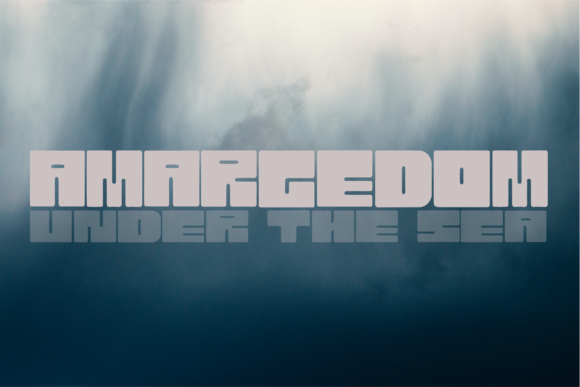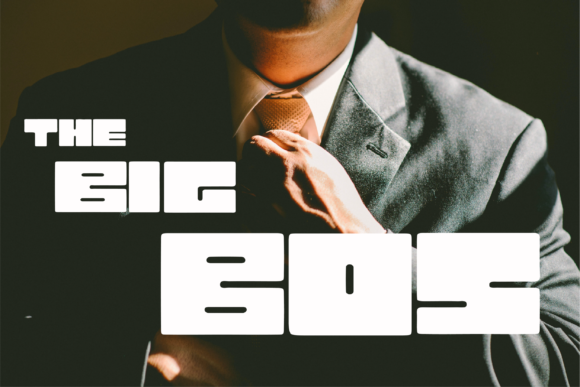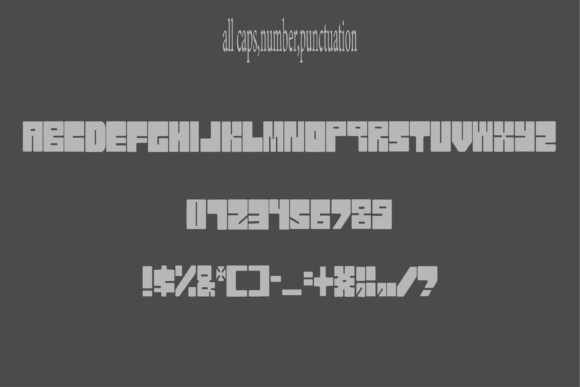
Introducing Guons Font: The Ultimate Display Font for Bold Designs
In the world of typography, fonts play a crucial role in conveying the tone and personality of a design. For designers and crafters looking to make a statement, Guons Font is an excellent choice. This solid and powerful display font is designed to add a touch of confidence and strength to any design project.
The Power of Guons Font
Guons Font is a versatile typeface that excels in making designs stand out. Its unique blend of negative lines and form writing creates a distinctive look that can elevate a wide range of projects. From sporting events to posters, album covers, and more, Guons Font is the perfect choice for designers seeking to make a bold statement.
Key Features of Guons Font
- Solid and Powerful: Guons Font boasts a robust and commanding presence, making it ideal for designs that require a strong visual impact.
- Versatile: This font can be used for various design projects, including sporting events, posters, album covers, and more.
- Unique Style: The combination of negative lines and form writing creates a distinctive look that sets Guons Font apart from other display fonts.
Use Cases for Guons Font
Guons Font is an excellent choice for a variety of design projects, including:
- Sporting Events: Use Guons Font to create bold and eye-catching posters, flyers, or social media graphics for sports events, teams, or athletes.
- Posters: Add a touch of confidence and energy to your posters with Guons Font, perfect for promoting concerts, festivals, or other events.
- Album Covers: Give your music a bold and edgy look with Guons Font, ideal for rock, pop, or hip-hop album covers.
- Branding and Advertising: Use Guons Font to create a strong and memorable brand identity or add a bold touch to your advertising campaigns.
Tips for Using Guons Font
To get the most out of Guons Font, consider the following tips:
- Pair with contrasting fonts: Combine Guons Font with a clean, sans-serif font to create visual interest and balance.
- Experiment with colors: Guons Font looks great in bold, bright colors, but also try using it in metallic or gradient effects for added depth.
- Play with layout: Use Guons Font to create a focal point in your design, then experiment with different layouts and compositions to add visual interest.
Guons Font is a powerful and versatile display font that can add a touch of confidence and strength to any design project. With its unique blend of negative lines and form writing, this font is perfect for designers and crafters looking to make a bold statement. Whether you’re working on a sporting event, poster, album cover, or branding project, Guons Font is an excellent choice.